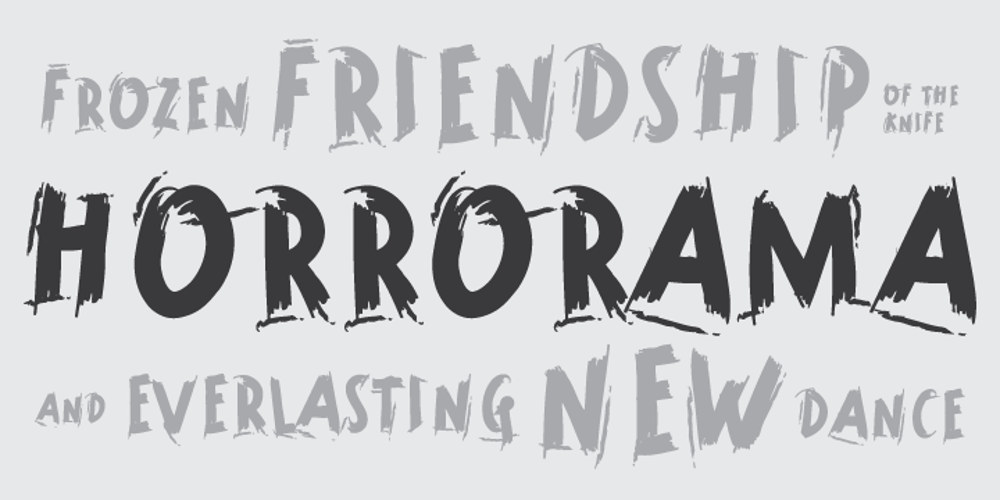
Horrorama Font Family was designed by Dusan Jelesijevic and published by Tour De Force. Horrorama contains 1 styles and family package options. From the director” of Punkerro Crust and Rough the Type, here comes another special type for the lovers of brush moves.”